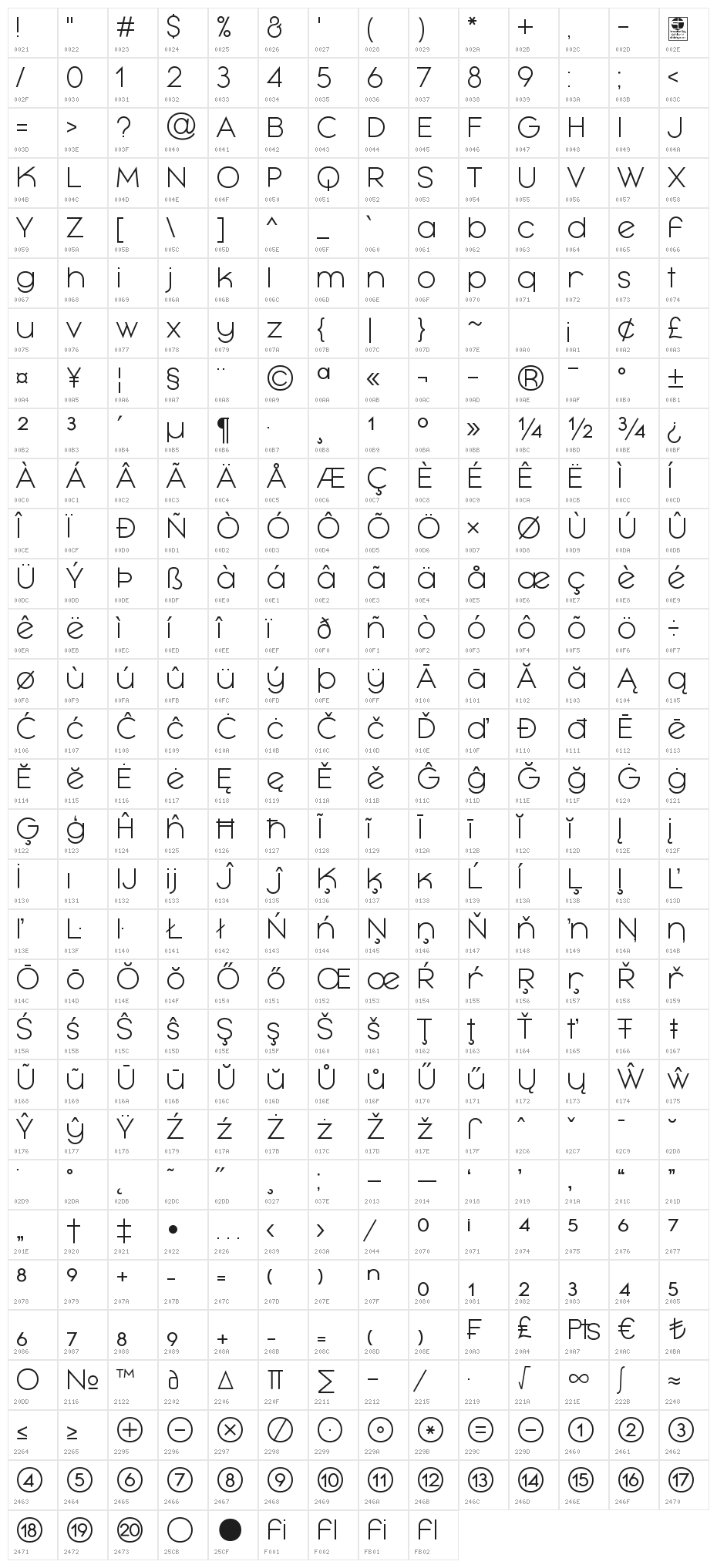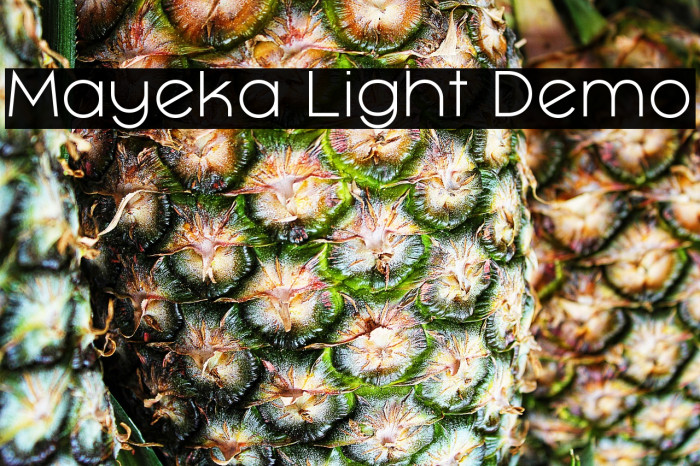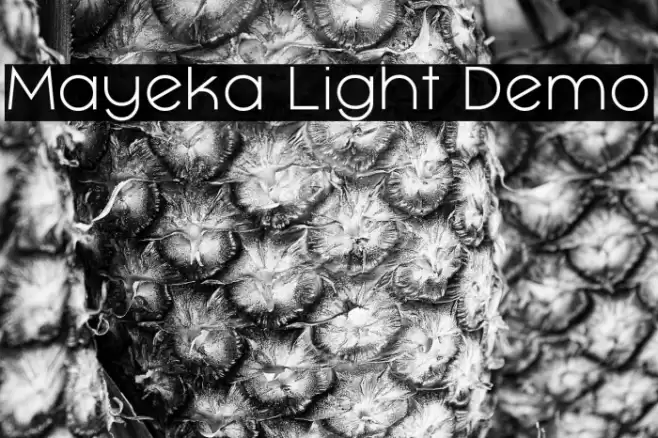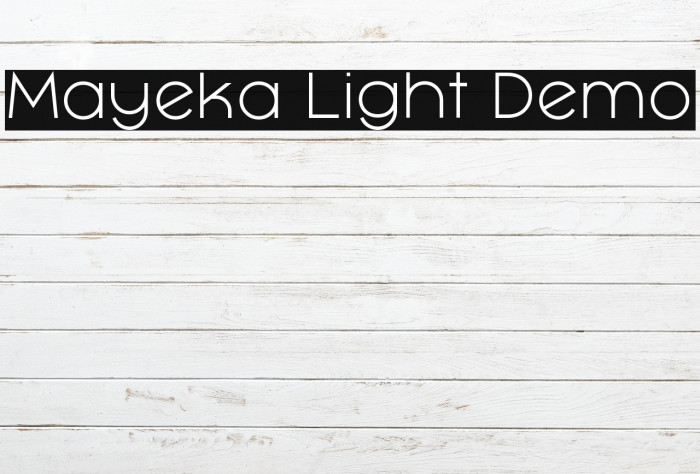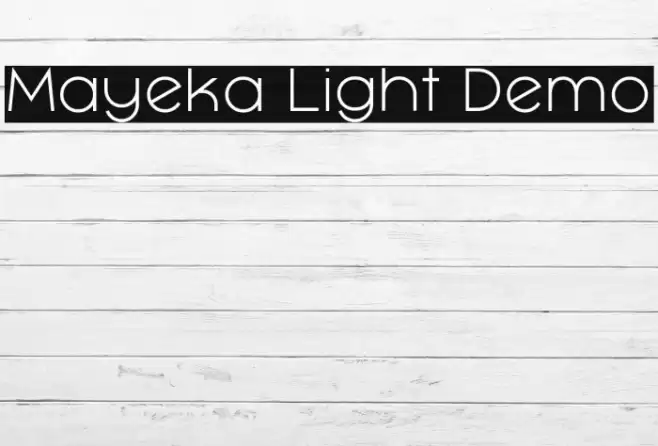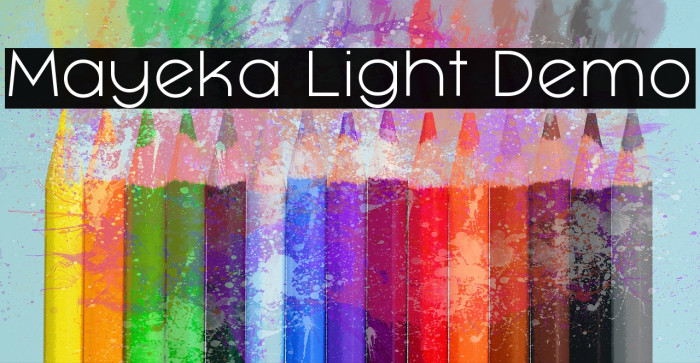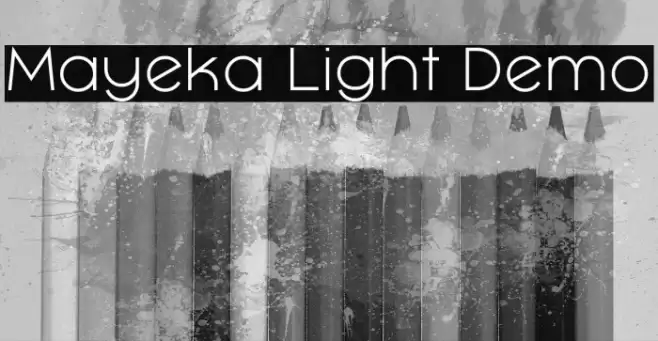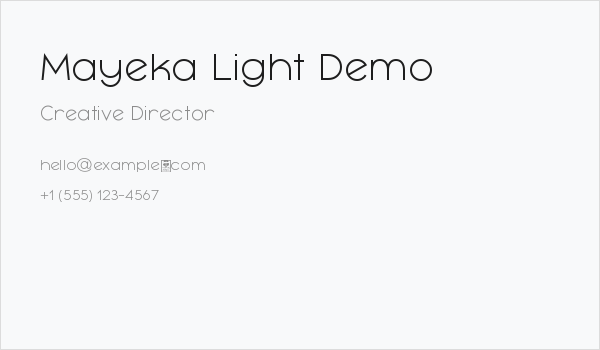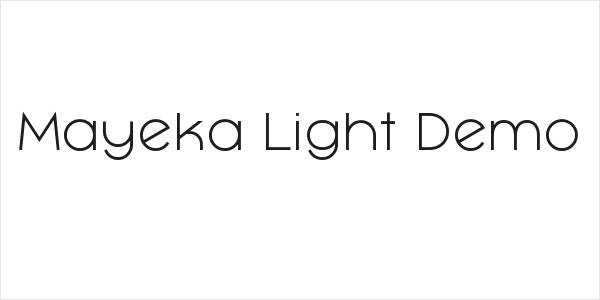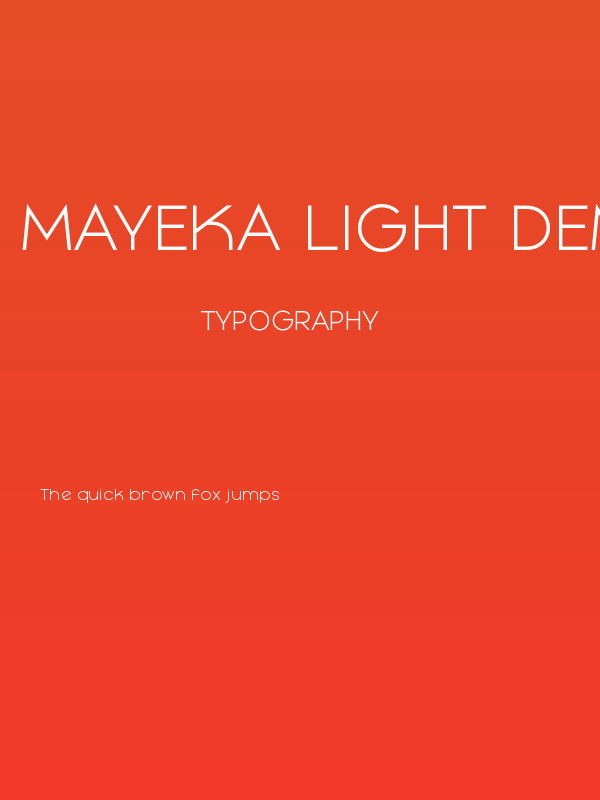
Mayeka Light Demo Font
Mayeka Light Demo Description
This font features a clean and modern design with a minimalist aesthetic. The characters are evenly spaced, providing a balanced and harmonious look. The strokes are consistent in thickness, contributing to a sleek and polished appearance. The uppercase and lowercase letters are well-proportioned, making it versatile for various design needs. The numerals are clear and easy to read, while the special characters maintain the overall style, ensuring consistency across different uses.